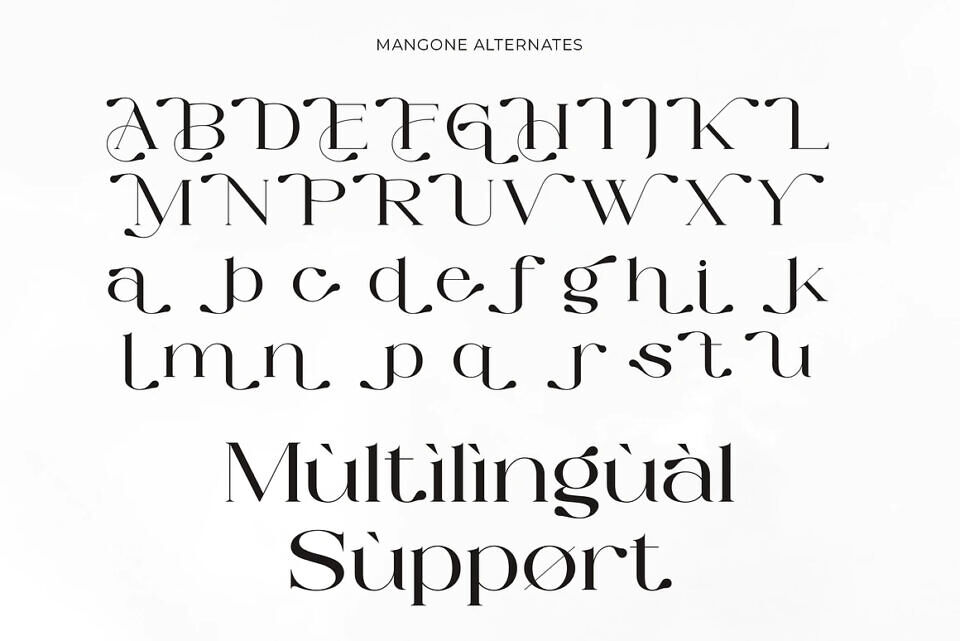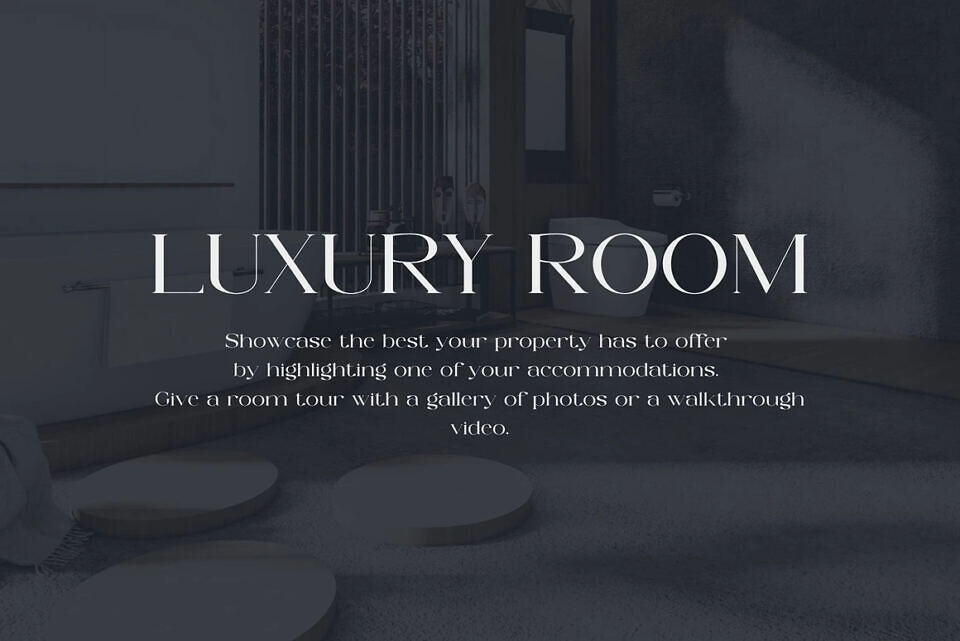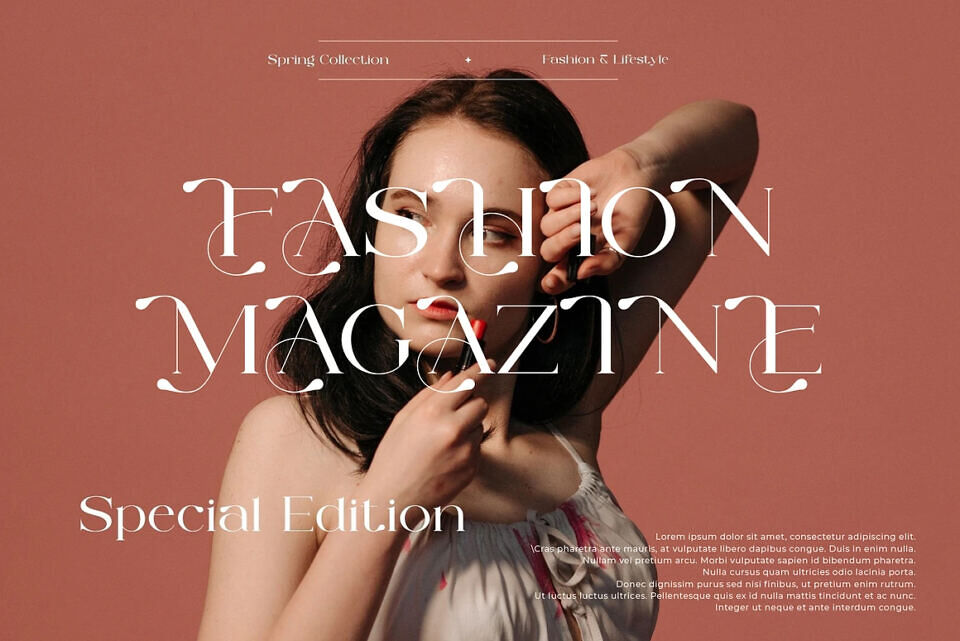
Mangone Font
Mangone “Modern Serif Typeface” is the perfect choice for those looking for a modern serif font with an elegant and captivating touch. Designed with fine details and balanced letterforms, this font provides a professional yet artistic feel for a variety of design needs.